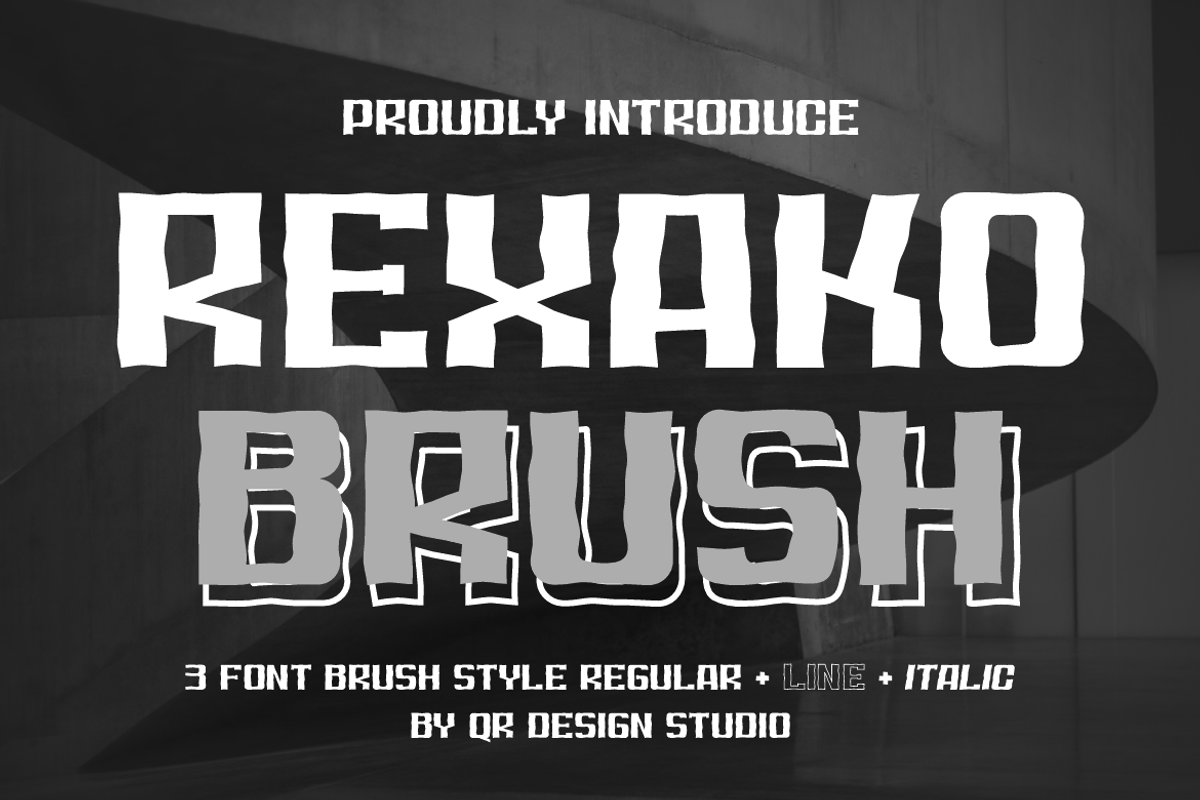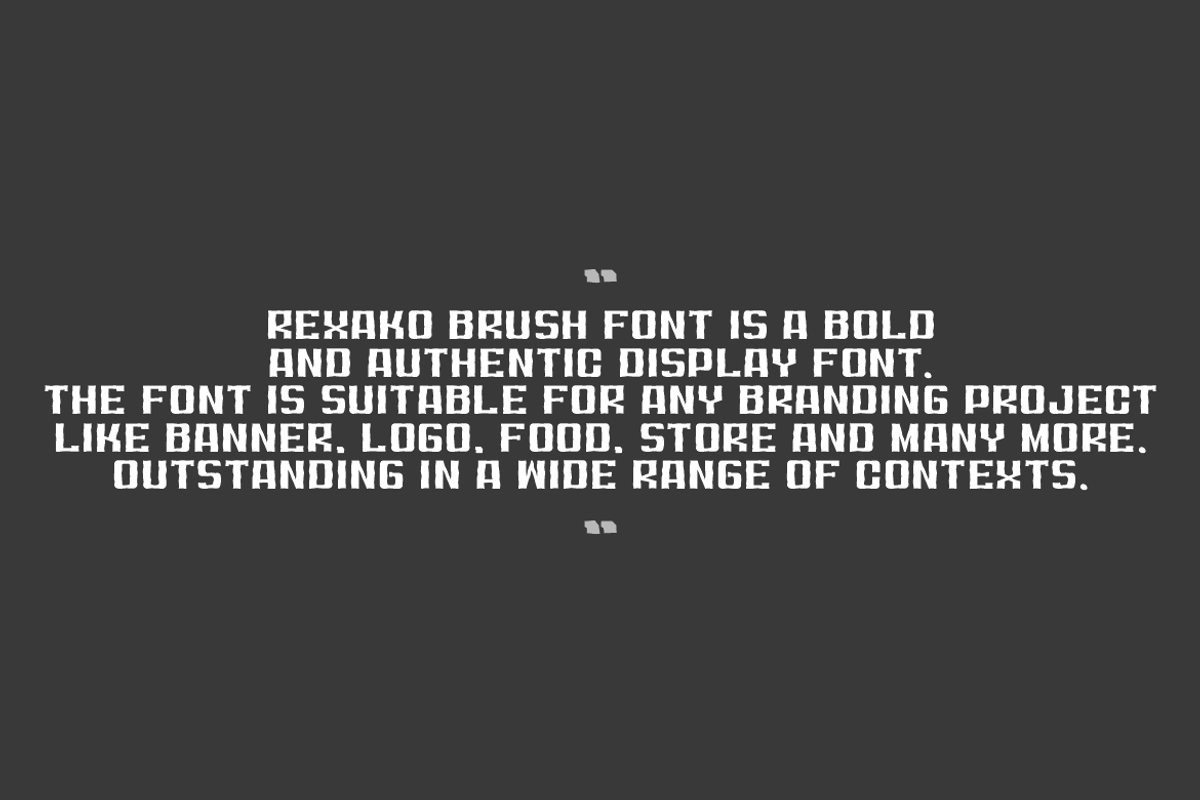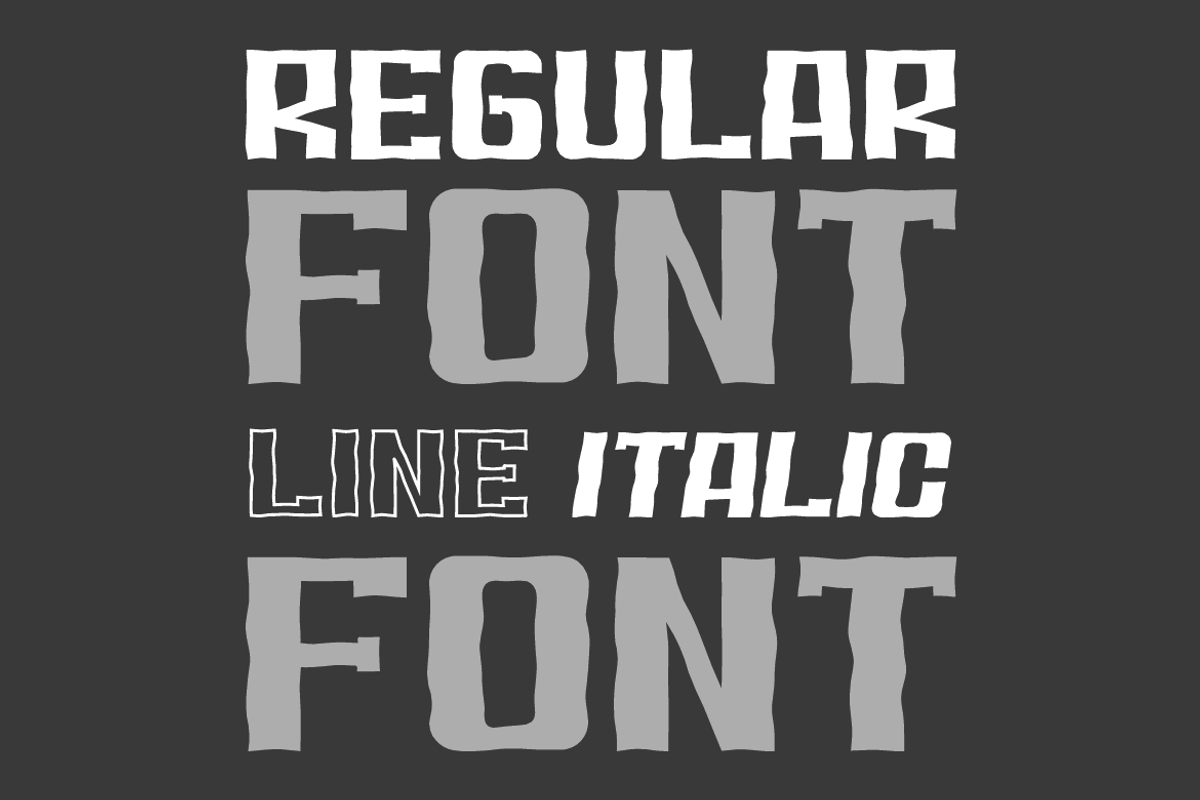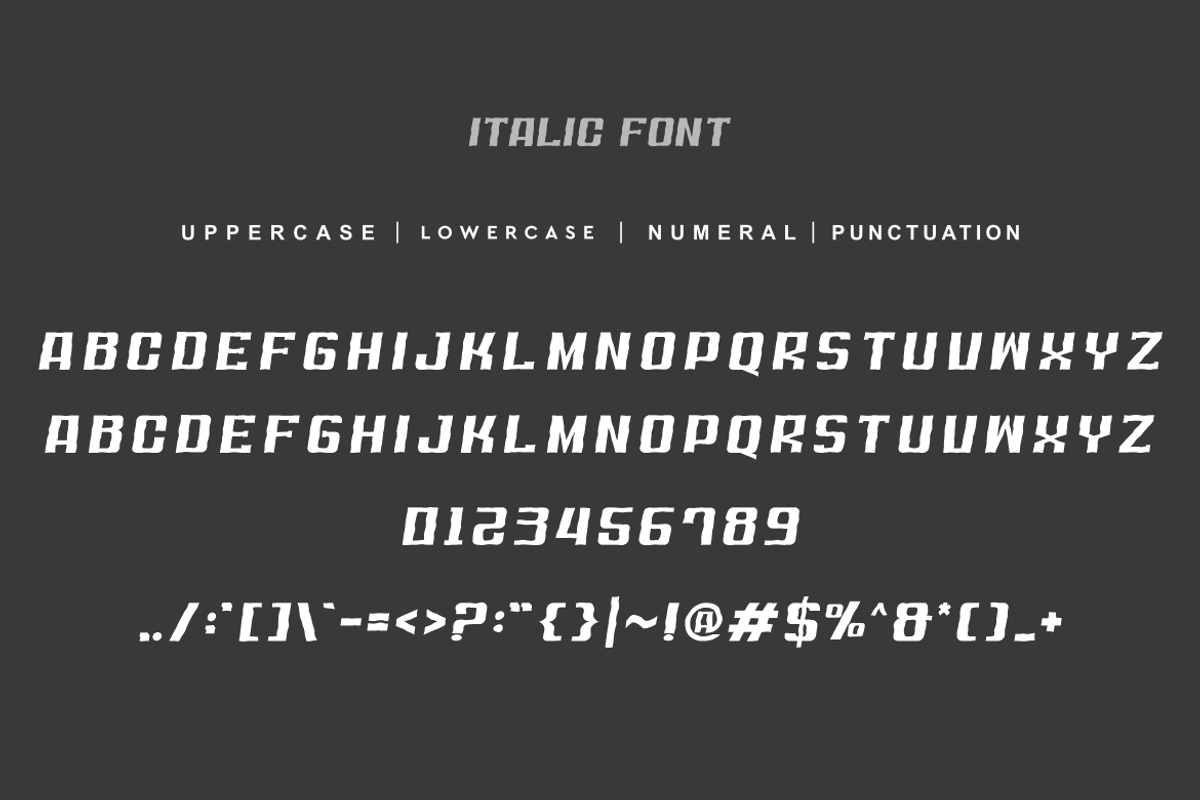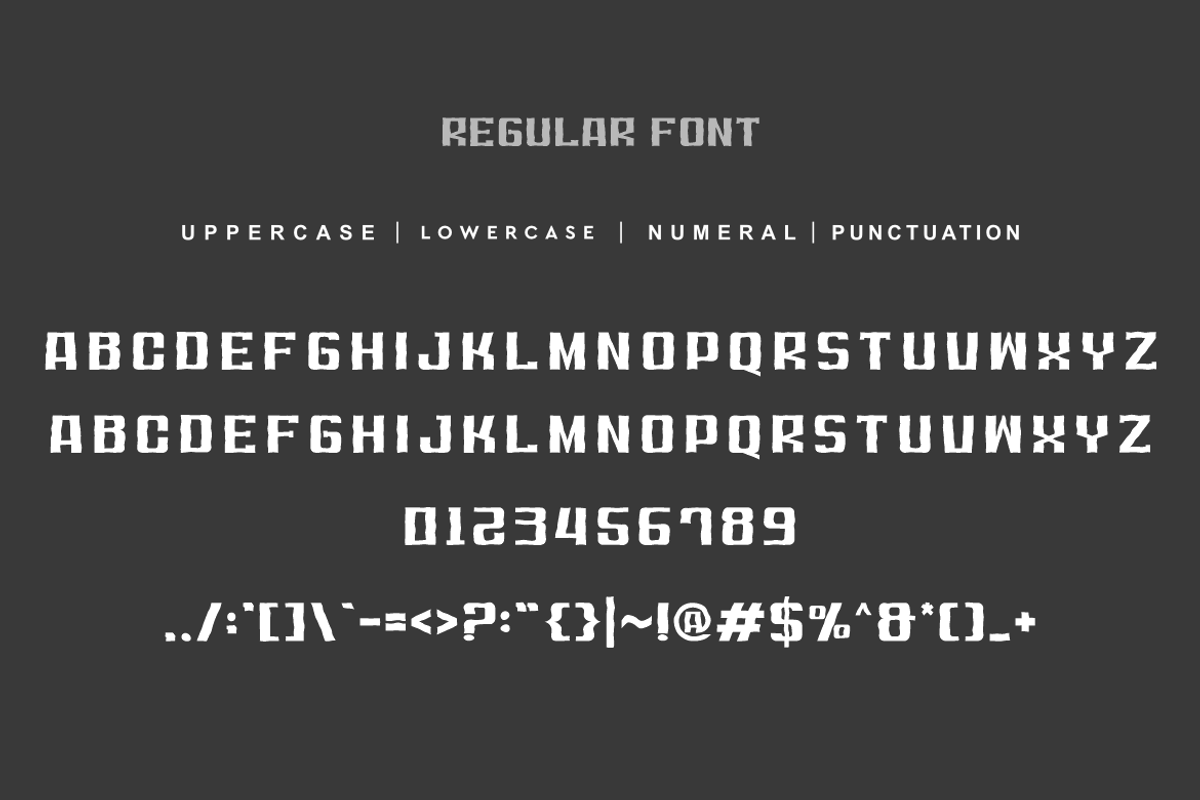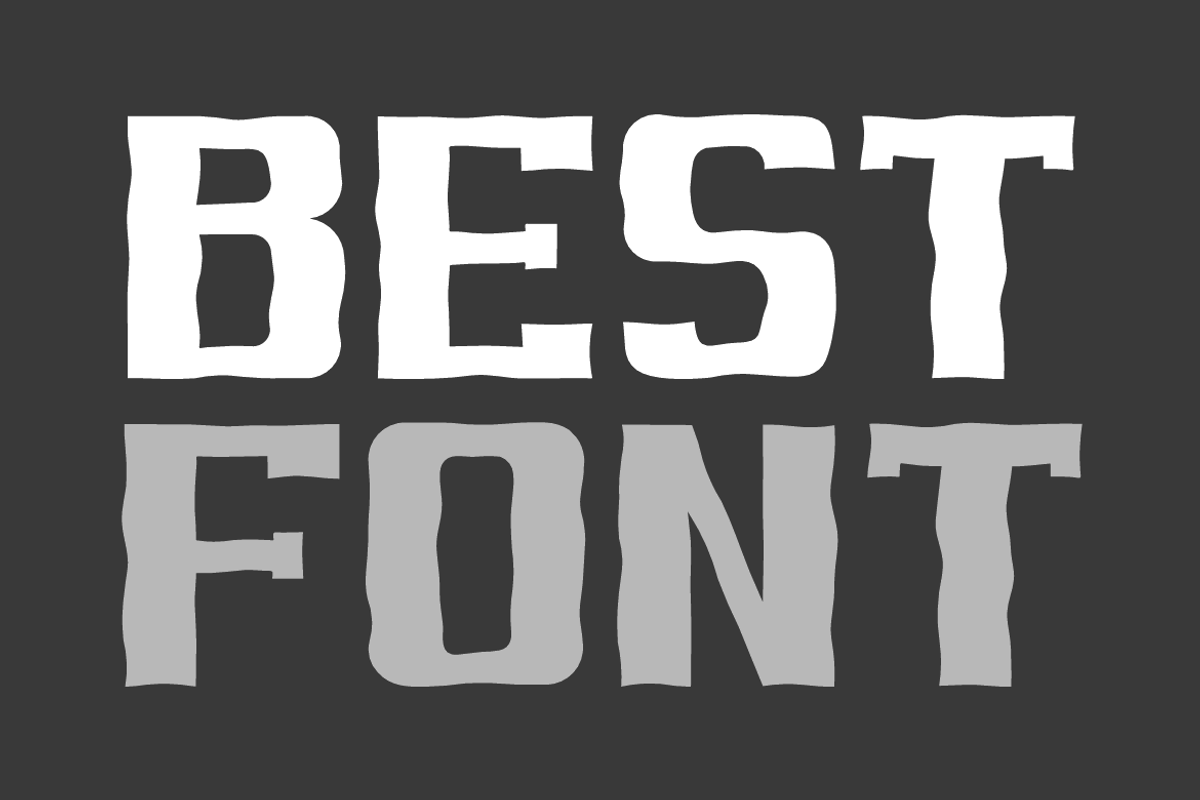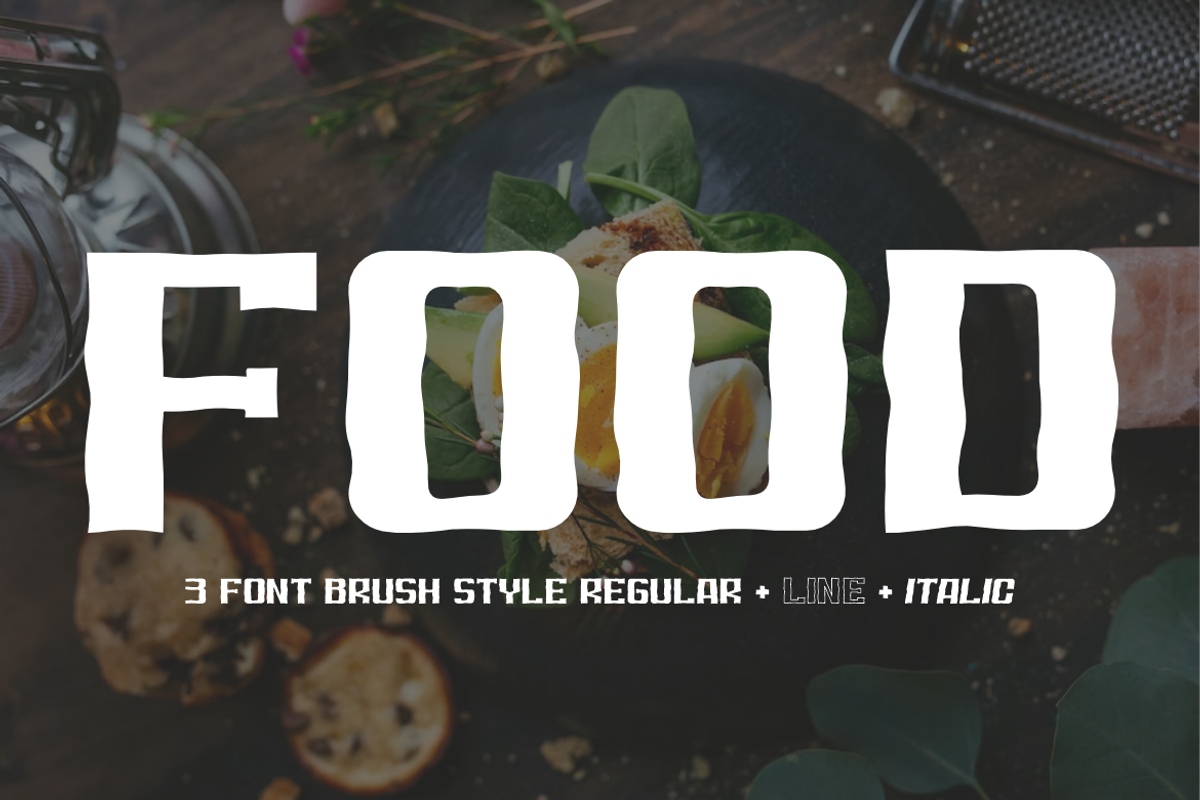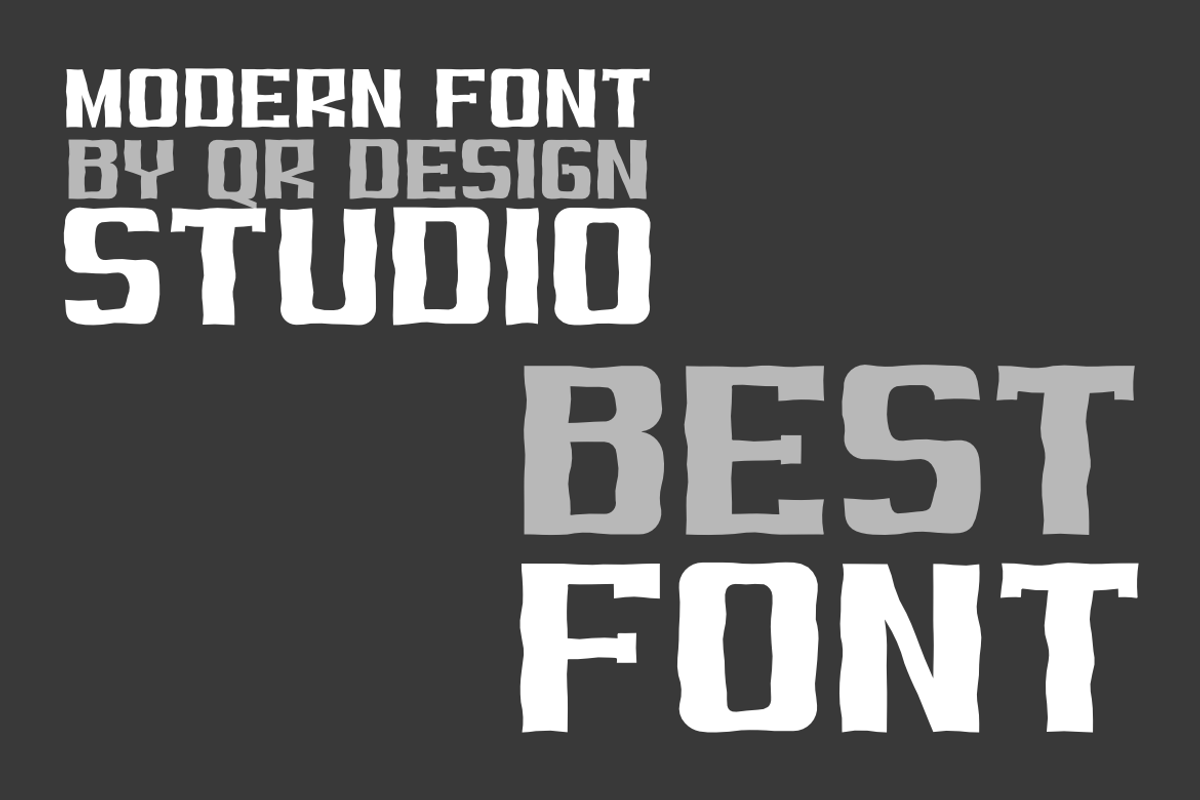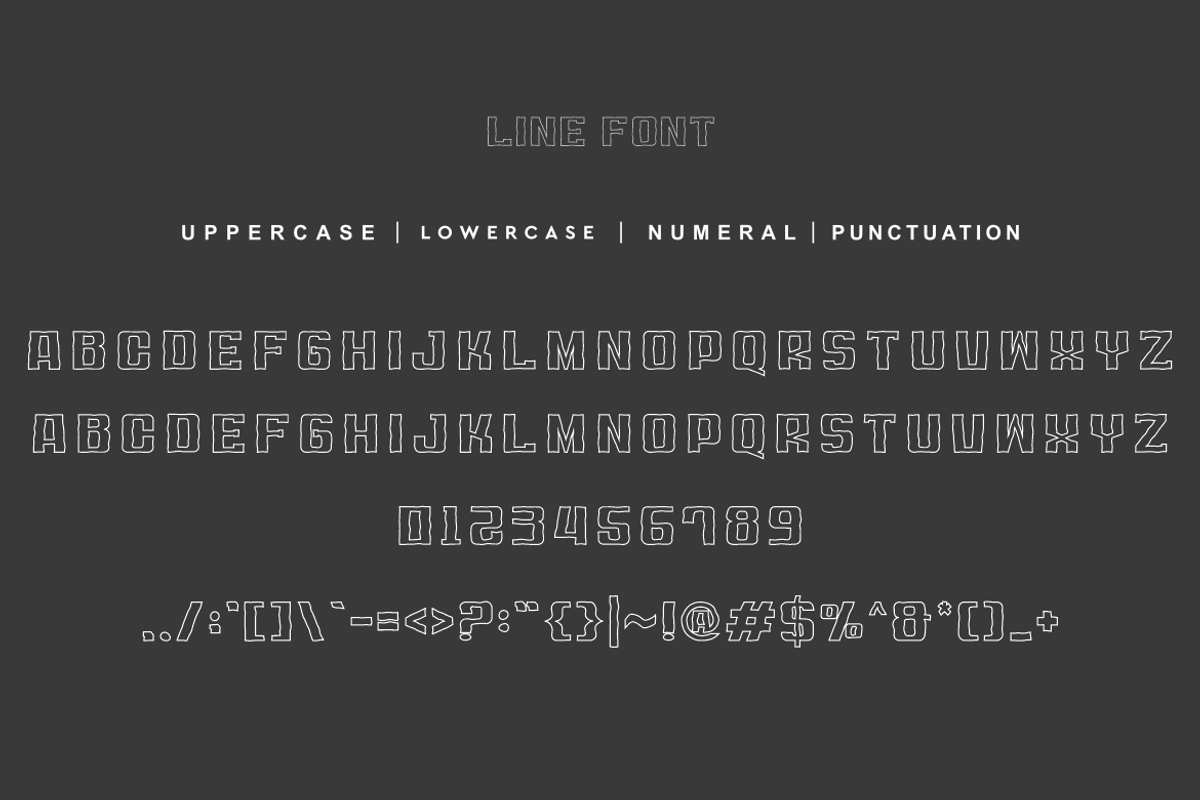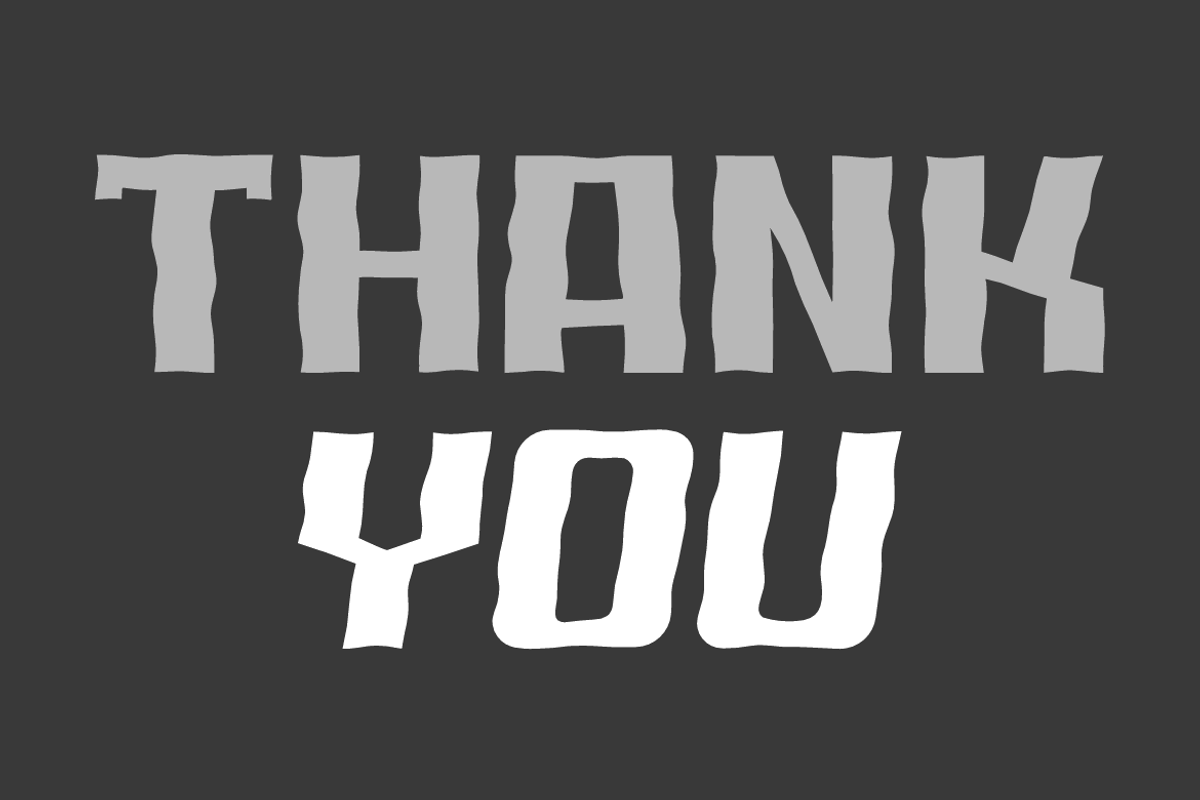
Rexako Brush
Rexako Brush is a bold and authentic display font. The font is suitable for any branding project like logo, food, sport, and many more. Outstanding in a wide range of contexts.